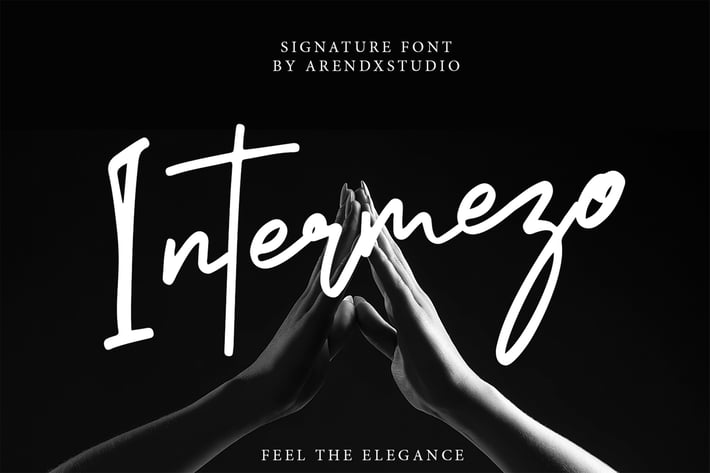
Intermezo Signature Font
Intermezo Signature font
This font is very suitable for your design project because it is very elegant and modern style with character you can apply it on business cards, posters, branding names, logos, your products and others It's a handwritten font. This font includes all upper and lower case standard characters, punctuation, numerals and ligatures.